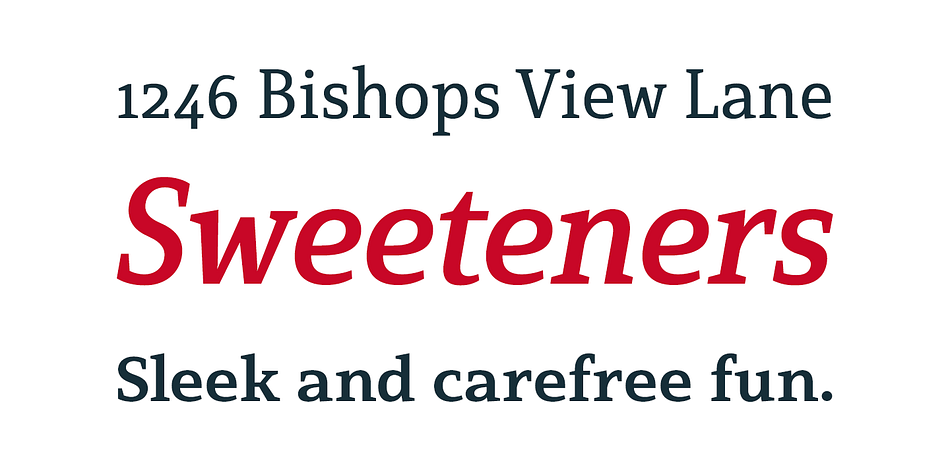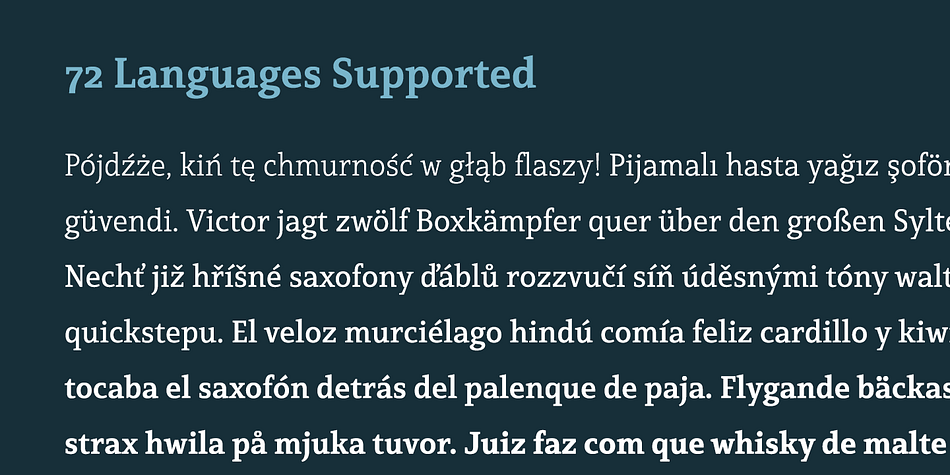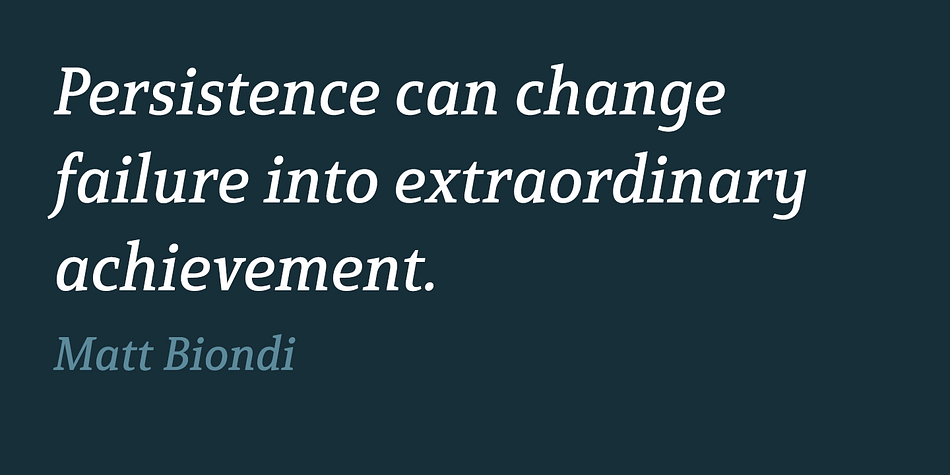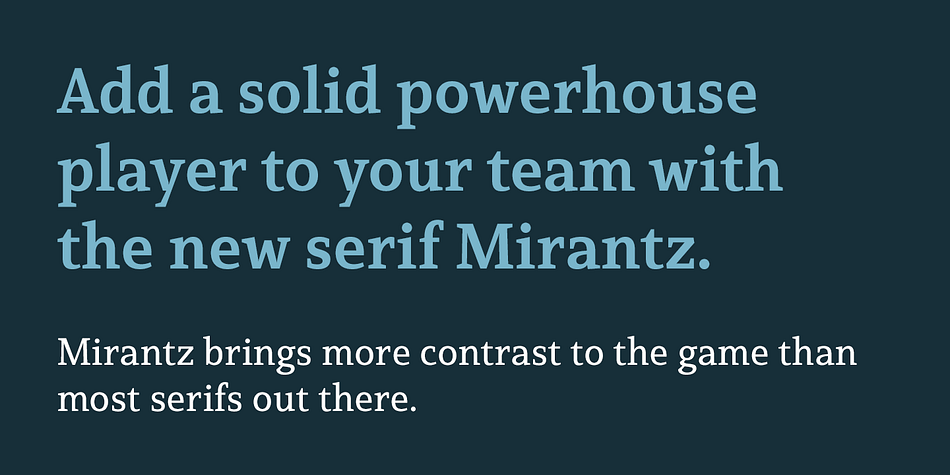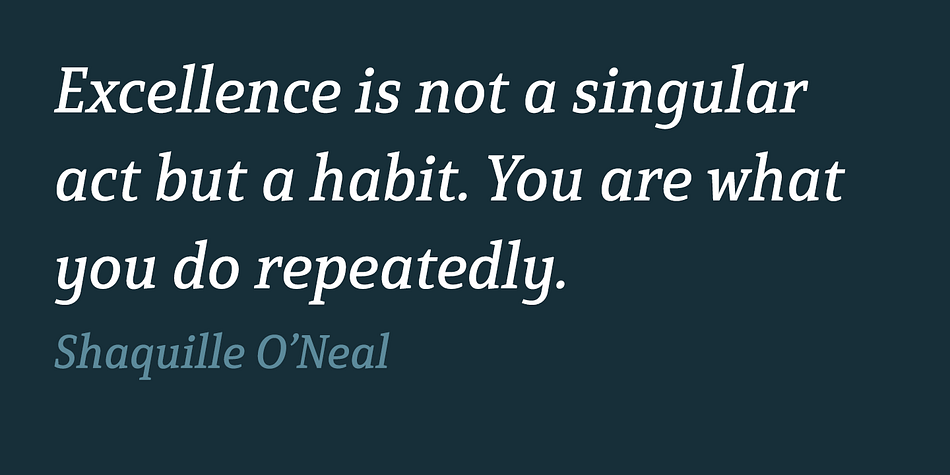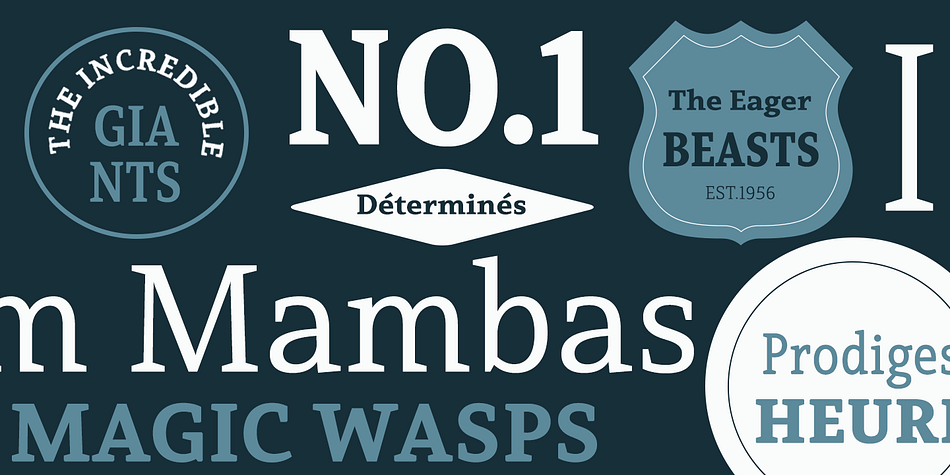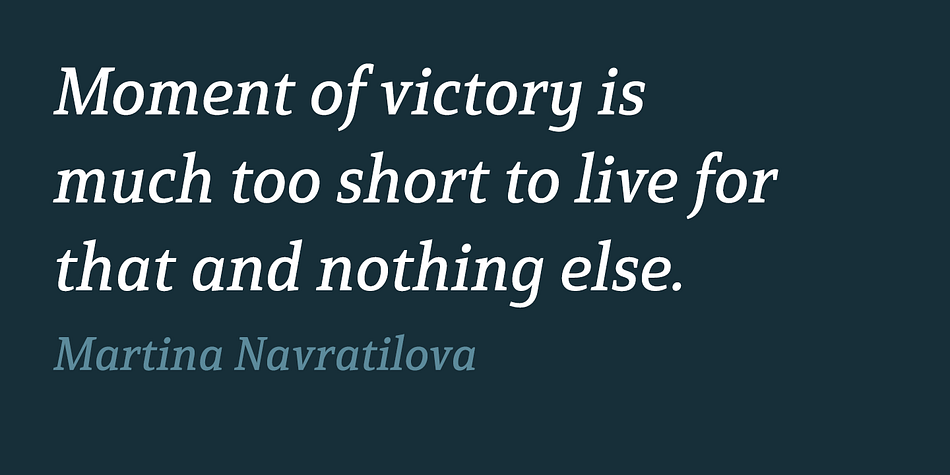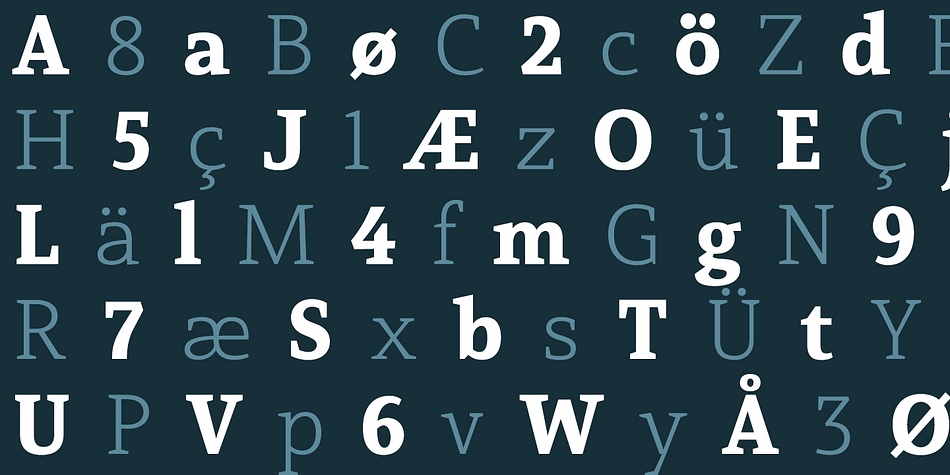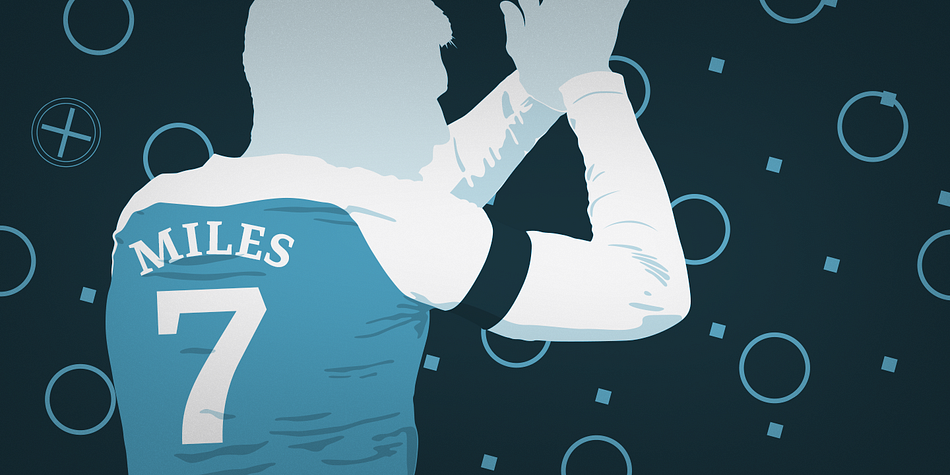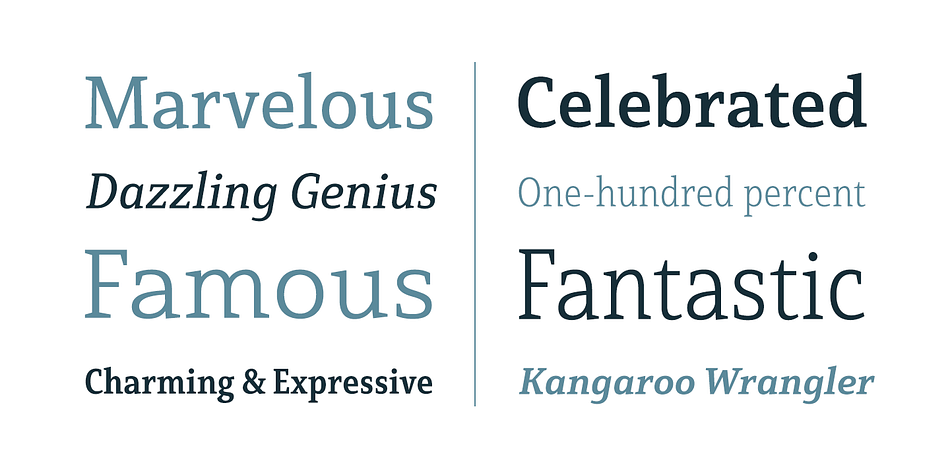
Designed by Jeremy Dooley, Mirantz is a serif font family. This typeface has fifty-four styles and was published by Insigne Design.
Y’all ready for this? Now starting for Insigne: the new serif Mirantz. This rookie all-star plays a precise game every game, cutting at all the right angles to leave your reader impressed and ready to see more. You can always count on Mirantz to lead with solid mechanics and a clean style, but don’t be surprised when the face keeps it real with a little individual flare and creativity. This personal touch is nothing short of elegance in every appearance.
So what makes us love this rookie above the other great players in the field? Contrast, for one. Mirantz brings more contrast to the game than most serifs out there. The serifs on this face have a crisp, sharp wedge that naturally draws the reader’s eye. You can’t help but fall in love with its clean, natural style. Mirantz also features a tall x-height and regular proportions that can play a number of positions on the page and still stay strong through the last half of the copy or even the final period.
Mirantz is a solid powerhouse player, containing a complete set of small capitals and nine weights from thin to bold. It can play well both down low and up top with its subscripts and superscripts and can move your reader’s eye easily across the copy with its titling capitals, condensed and extended variants, and open style figures. With its options covering more than 72 Latin-based languages, look for this newcomer to have international success in the near future.
It you haven’t set your draft picks for this next round of projects, think hard before passing up Mirantz. A capable serif like this one is a guaranteed asset to any team of fonts.